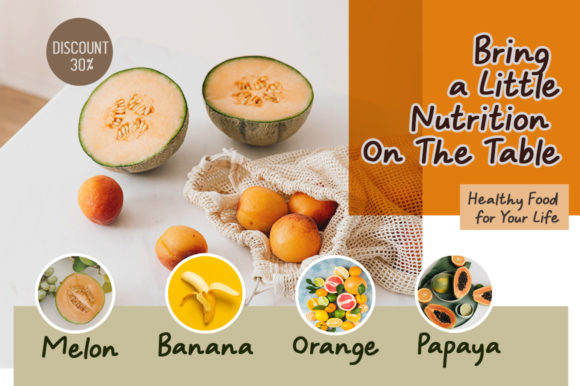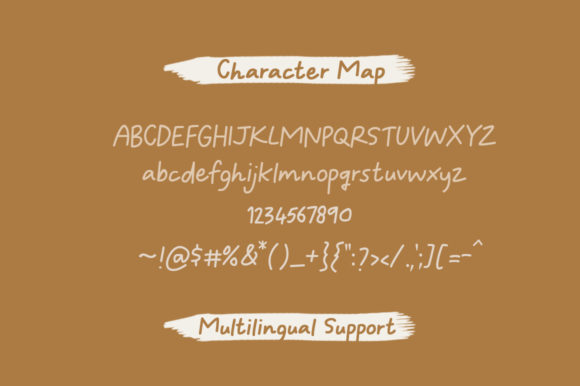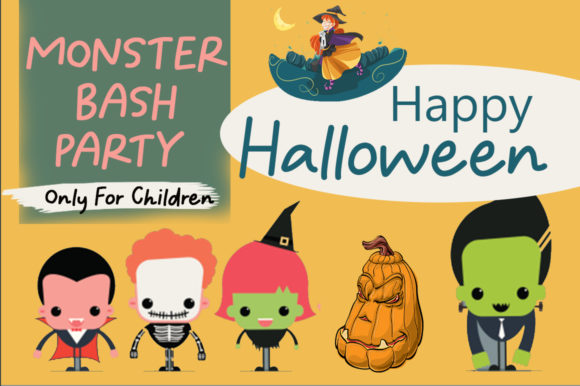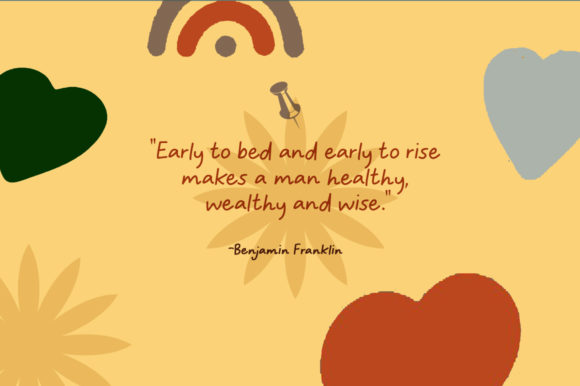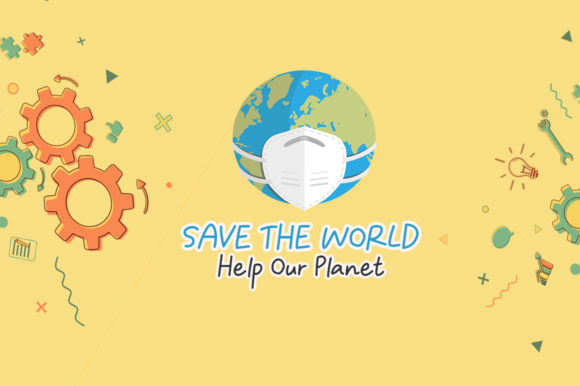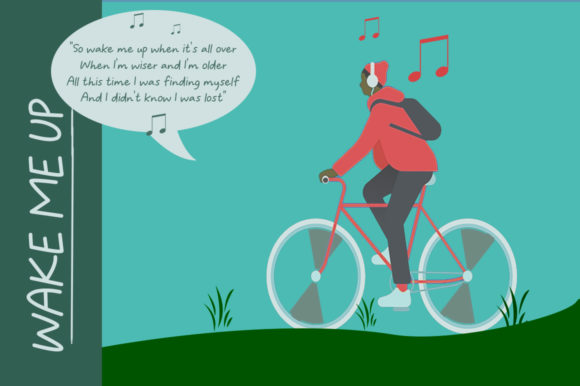
Introduction to Molineria Latifolia Font Font
Fonts play a crucial role in design, and the Molineria Latifolia Font font is a typeface that brings both character and versatility to any project. Whether you’re working on a branding project, a website, or a print design, the Molineria Latifolia Font font offers a unique style that can elevate your work.
Molineria Latifolia is a handwritten condensed font with a great love for details.
It is perfect for adding an unique and individual look to each of your creations .
Key Features of Molineria Latifolia Font Font
Why Choose Molineria Latifolia Font Font?
The Molineria Latifolia Font font is more than just a typeface – it’s a design tool that helps you communicate your message with style and clarity. Its unique character set and versatile design make it suitable for a wide range of applications, from elegant invitations to bold headlines.
With its carefully crafted letterforms and balanced proportions, the Molineria Latifolia Font font ensures readability and visual appeal across all mediums.
What makes Molineria Latifolia Font font special?
The Molineria Latifolia Font font stands out with its unique design, exceptional readability, and versatility across various design applications.